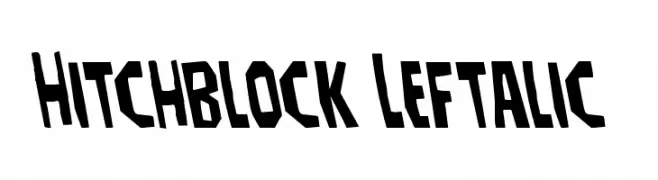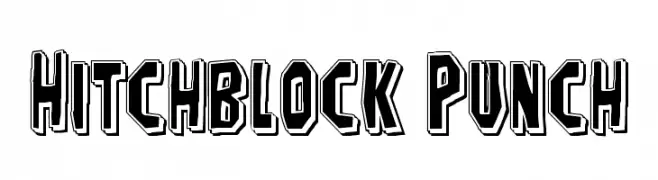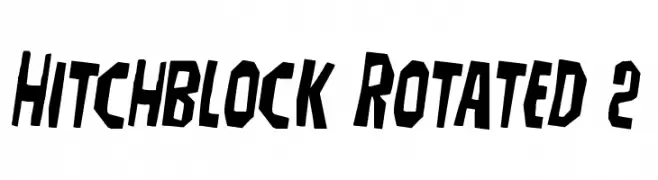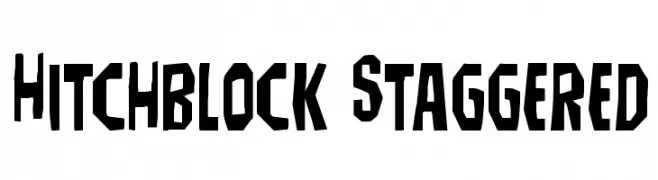
A bold, three-dimensional engraved font with a strong, impactful presence.
A bold, geometric font with angular shapes and a modern style.
A bold, expanded, and italicized font with angular, geometric characters.
A bold, italic, and geometric font with a dynamic and energetic style.
A bold, left-slanted font with angular, dynamic characters.
A bold, three-dimensional font with shadowed outlines for impactful headlines.
A bold, angular font with a dynamic, forward-leaning slant.
A bold, angular font with a dynamic, tilted design.
A bold, angular font with a dynamic slant and modern appeal.
A bold, geometric font with a staggered, block-like design.